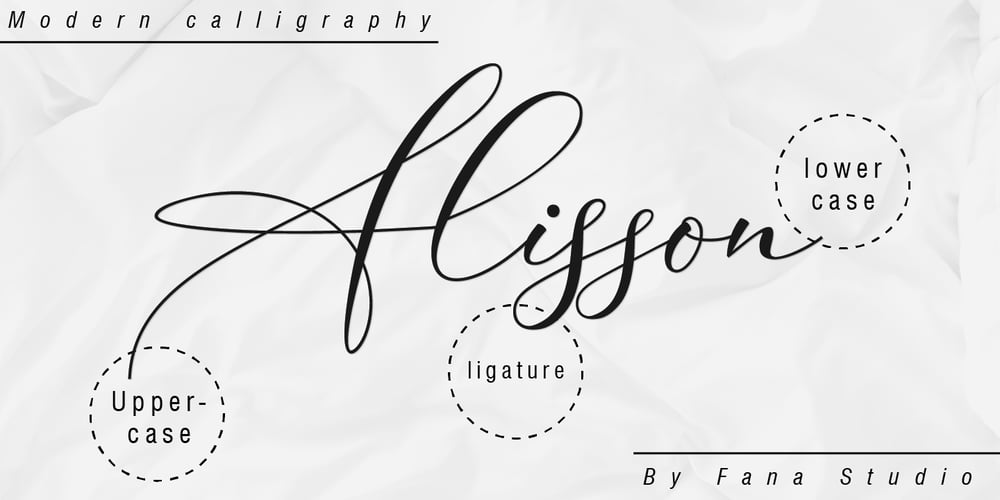
Alisson Font Family was designed by Fahri Rizal and published by Fana Studio. Alisson contains 1 styles and family package options. Alisson is a stylish script font. It has a modern and classy look which can be used to add an amazing personal touch to your designs. Alisson can be used for logos, branding, invitations, stationary, wedding designs, social media, advertisements, labels, watermarks, and much more!